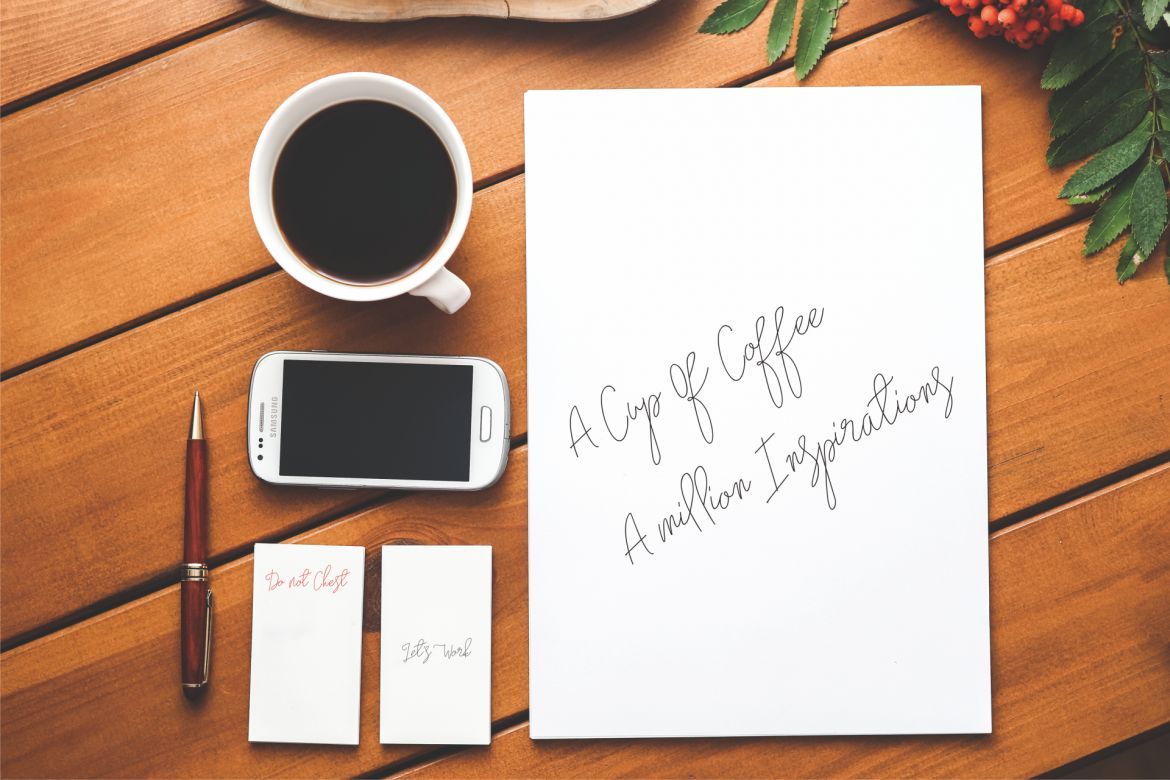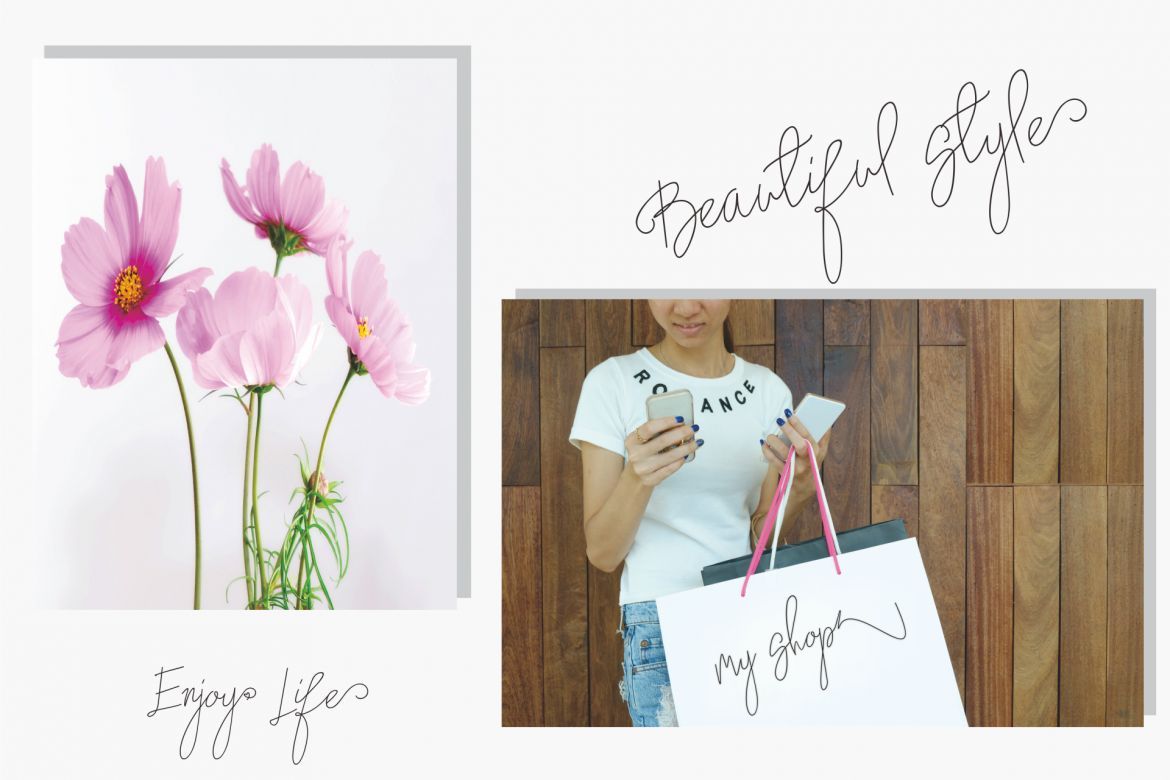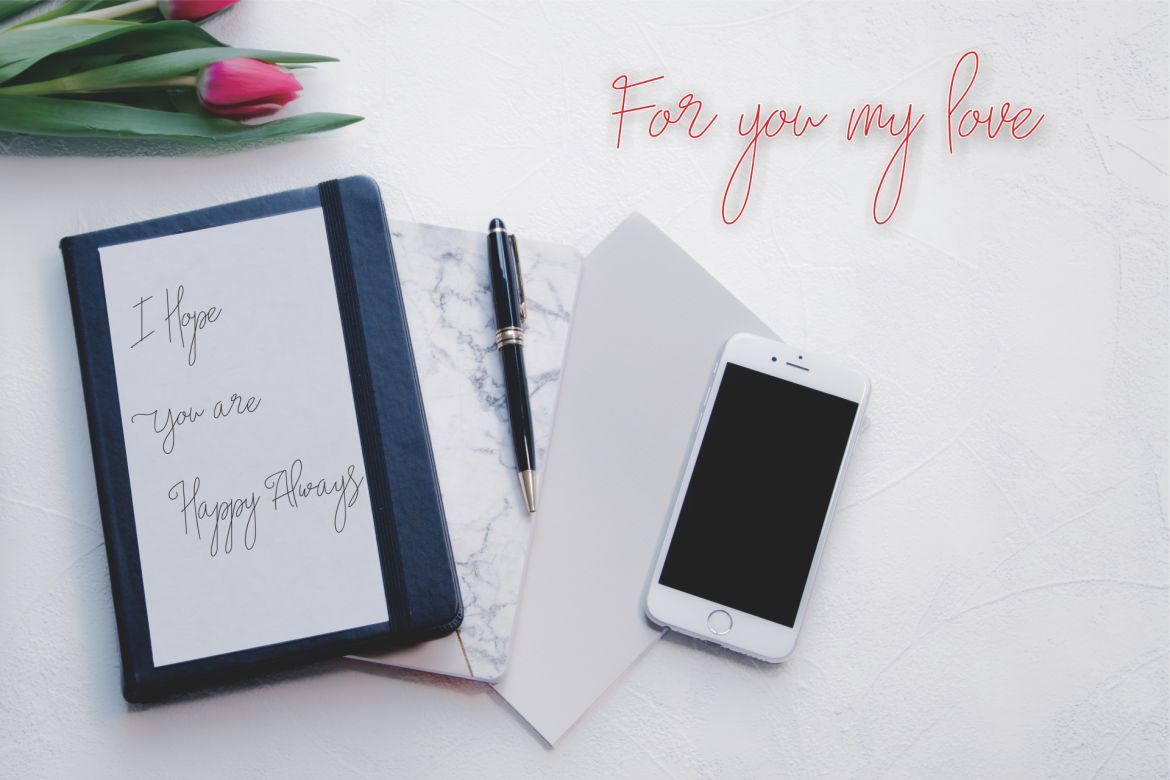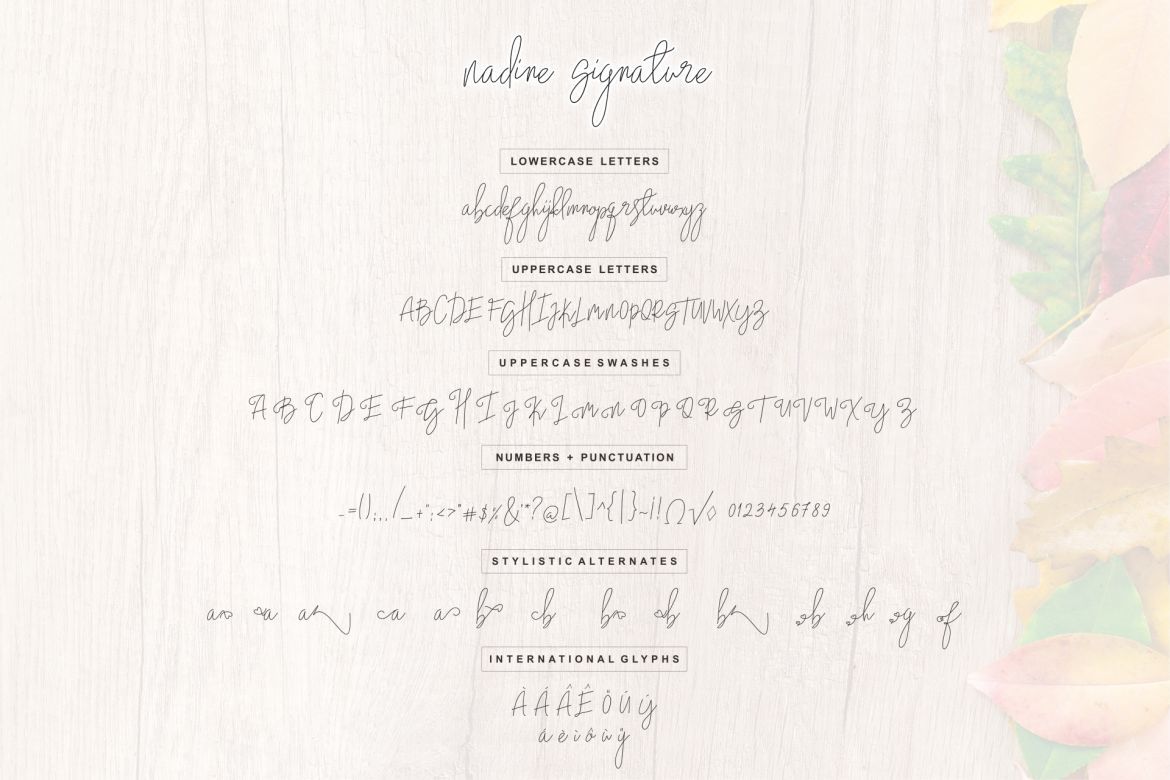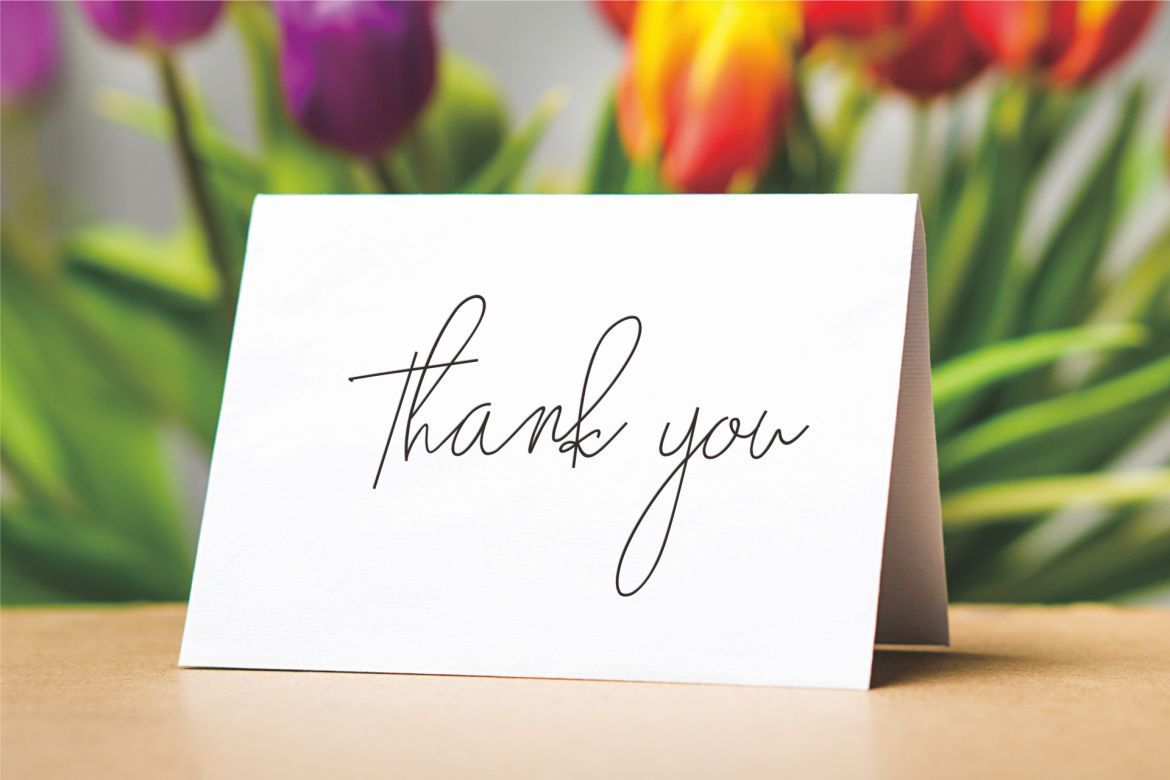
Nadine Monoline Font
Nadine Mono Line is a signature font, this font is created with great care, this font is perfect for, greeting card business cards and other invitations other. nadine has given PUA encoded (fonts with special code).
• nadine mono line
• perfect for, greeting card business cards and other invitations other.